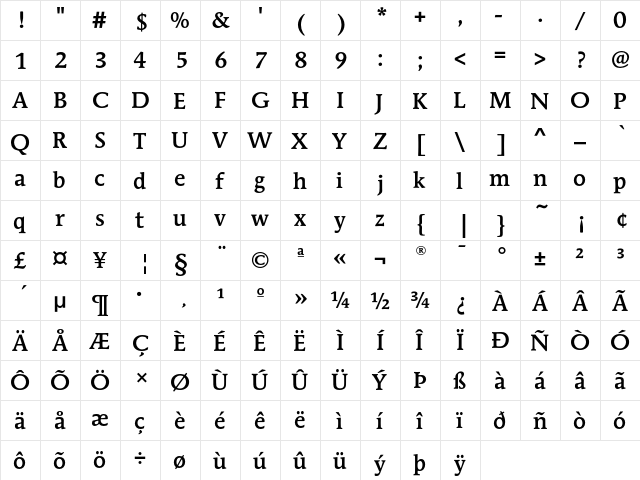
MendozaEF Medium
Design Context for MendozaEF Typeface
MendozaEF takes a measured approach to typography — its balanced proportions and neutral character make it a reliable workhorse for both digital and print work.